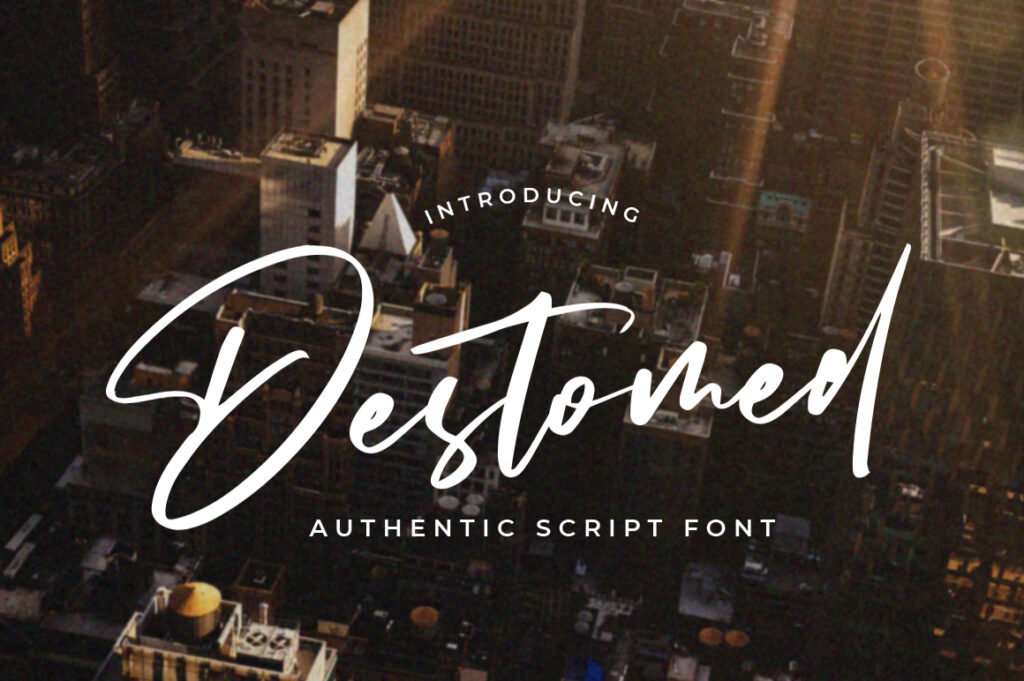
Destomed Font
Destomed is a relaxed and casual handwritten font. This font looks great on a variety of design ideas, such as posters, titles, logos and so much more.
Destomed Handwritten Script Font